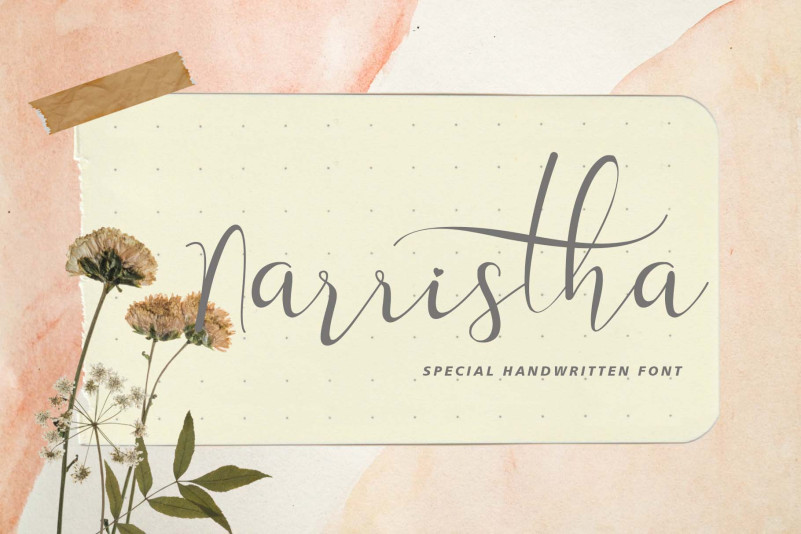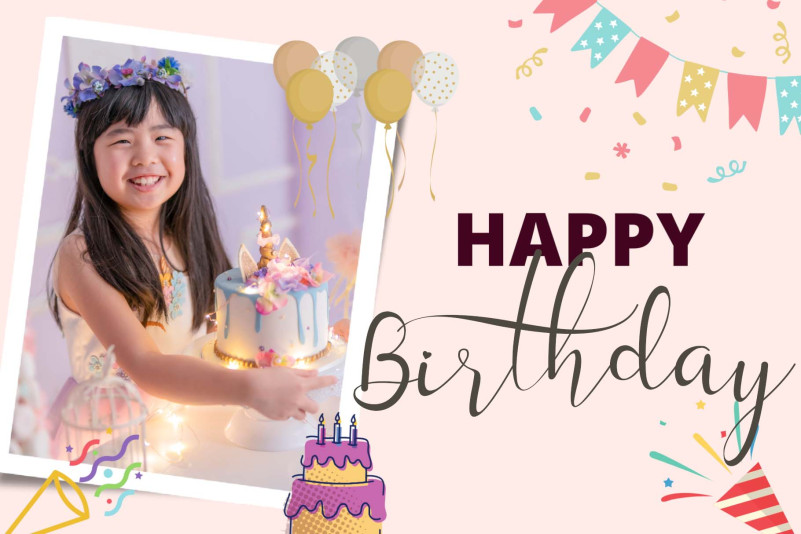
Narristha Font
Narristha Font is a romantic and elegant script font that captures the timeless beauty and sophistication of calligraphy. Its flowing letters and delicate curves create a graceful and refined look that is perfect for wedding invitations, branding, and editorial layouts.